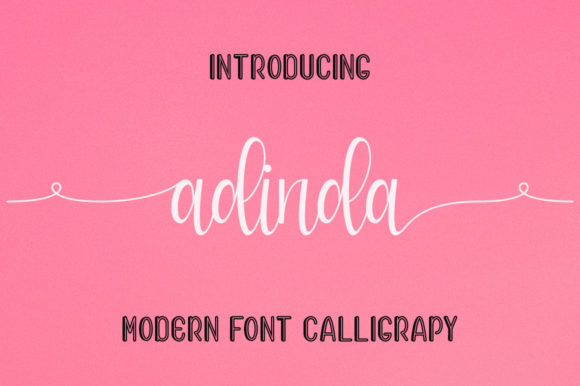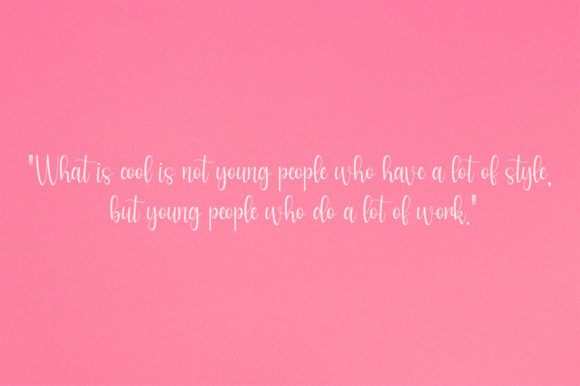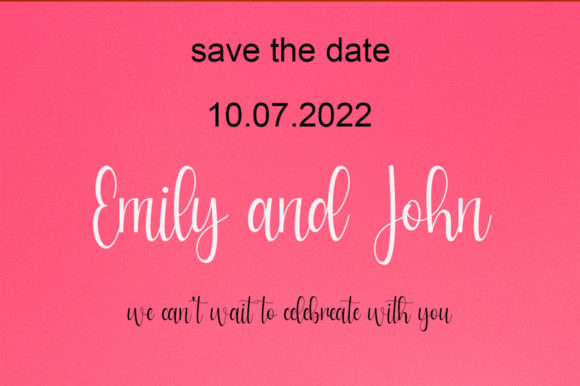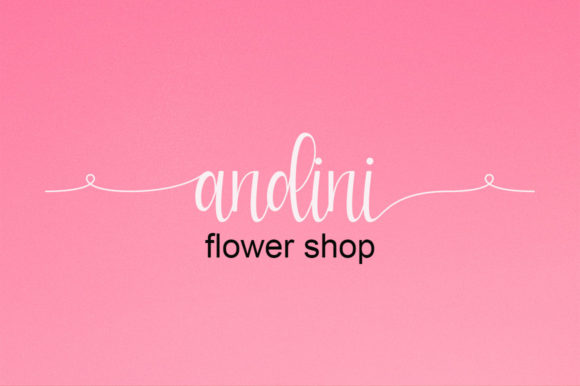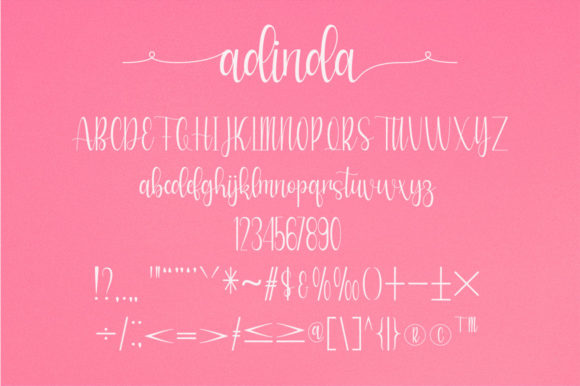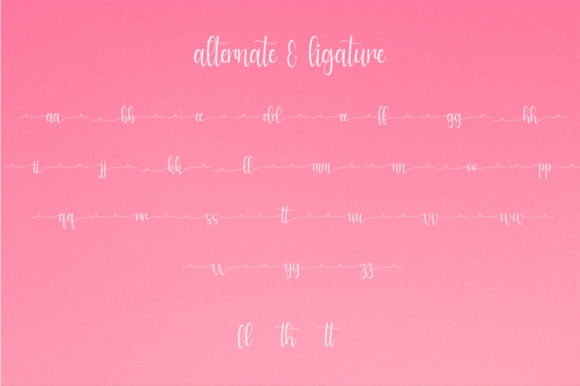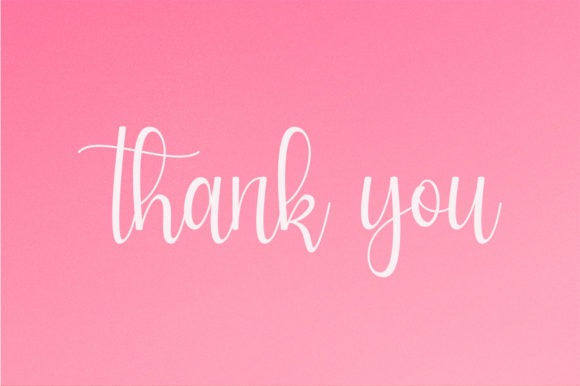
Adinda Font
About Adinda Font
“Adinda” is a captivating handwritten font that exudes enchantment and charm. This versatile typeface can be applied across a wide range of design projects, from greeting cards to headlines. With its PUA encoding, accessing the various glyphs and swashes is made effortless, allowing for creative flexibility.
The font’s enchanting appearance brings a sense of allure and beauty to your designs. Whether you’re working on creating visually striking greeting cards or attention-grabbing headlines, “Adinda” has the potential to elevate your work with its captivating and artistically crafted aesthetic.
Its versatility is evident in its suitability for a diverse range of design contexts. The inclusion of PUA encoding adds an extra layer of convenience, enabling you to effortlessly access the unique features and variations that “Adinda” offers.
In essence, “Adinda” is more than just a font—it’s a creative tool that enhances your ideas with its enchanting and captivating handwritten style. Its versatility and accessibility to various glyphs and swashes make it a valuable asset for designers aiming to create captivating, versatile, and aesthetically enchanting designs that leave a lasting impression.